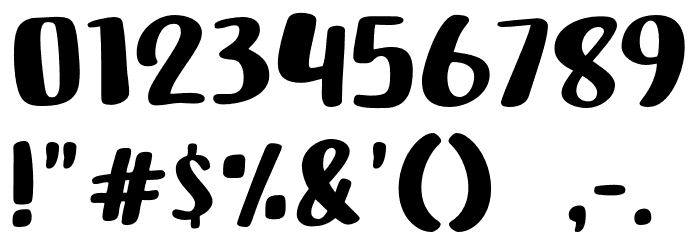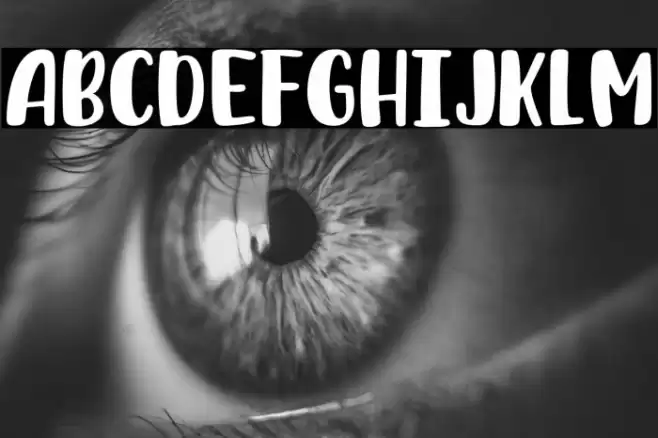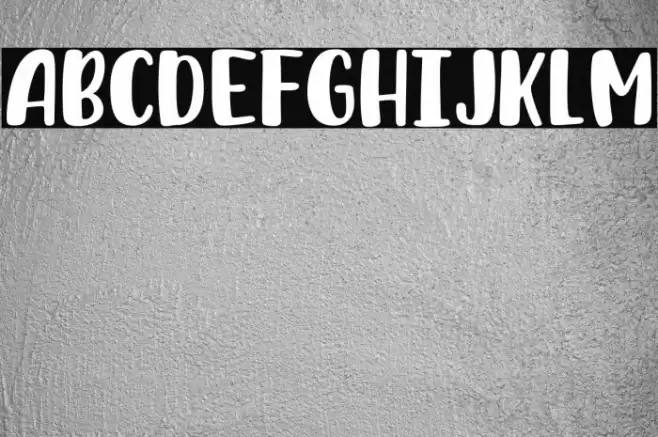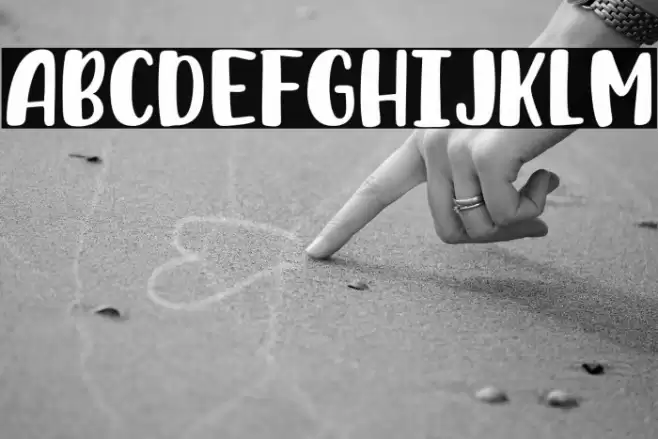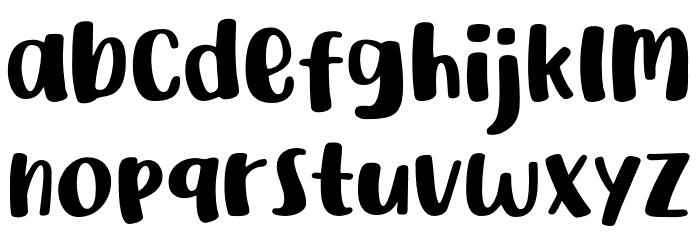
Yellow Style Font
Yellow Style Description
This playful and bold font features rounded, thick strokes that give it a friendly and approachable appearance. The characters are slightly irregular, adding a hand-drawn feel that enhances its charm. The uppercase and lowercase letters maintain a consistent style, with smooth curves and a slight tilt that adds dynamism. The numerals and special characters are equally bold, ensuring they stand out. This font is perfect for projects that require a fun and lively touch, such as children's books, playful branding, or eye-catching headlines.
| Overall Style | Playful |
| Use Case | Headlines, Logos |
| Proposed Projects | Ideal for children's books, playful branding, and eye-catching headlines. |